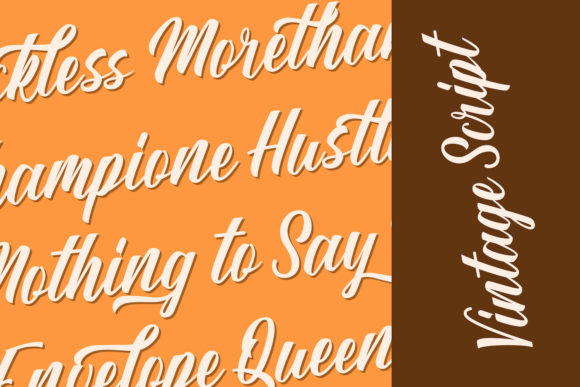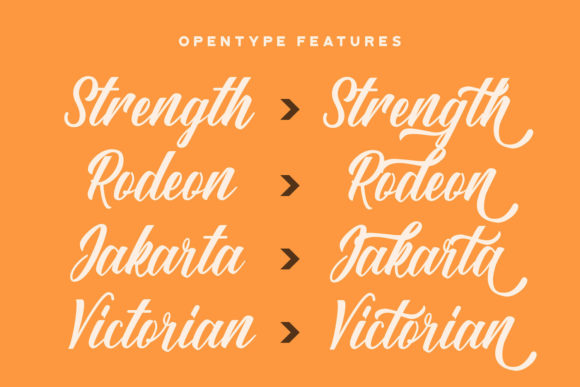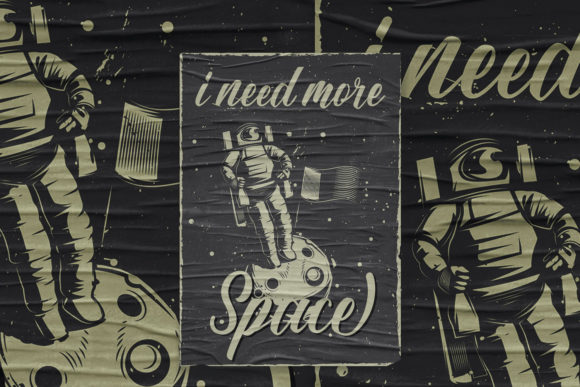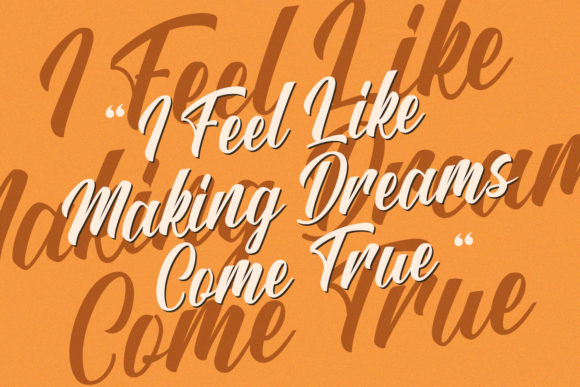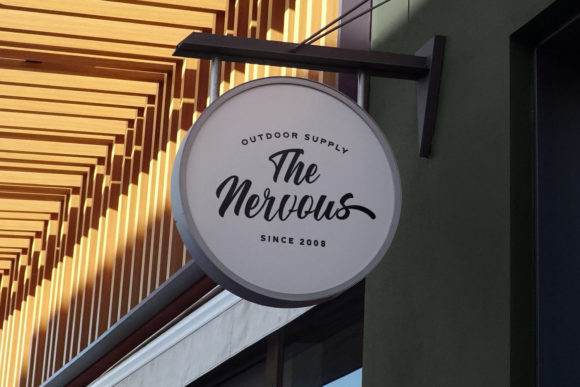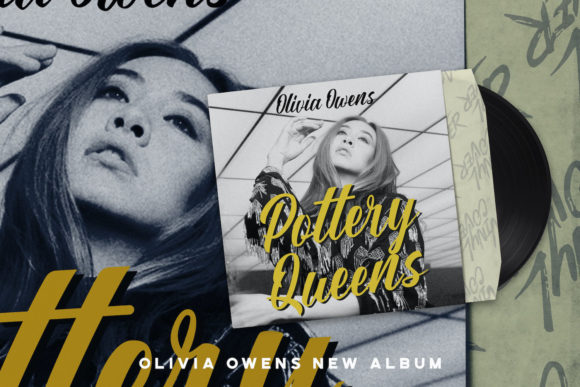
Introduction to Sang Ratu Font
Sang Ratu is a beautiful and vintage styled script font.
It reads as strong, confident, and dynamic and can add tons of nostalgic character to your designs Sang Ratu is PUA encoded which means you can access all of the glyphs and swashes with ease.